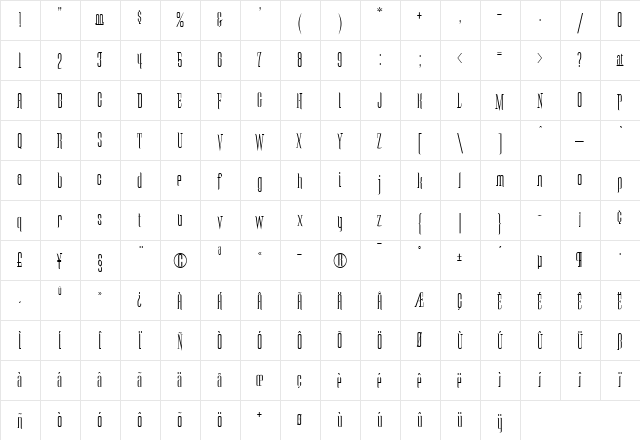
Tall Regular Font Preview
Tall Regular
Tall Regular Font Details
| Foundry | Malaise Tall\ Lunchbox Design, By Adam Roe , |
Design Context for Tall Typeface
Tall offers clean, dependable letterforms without strong stylistic allegiance, making it a practical choice for designers who need flexibility.